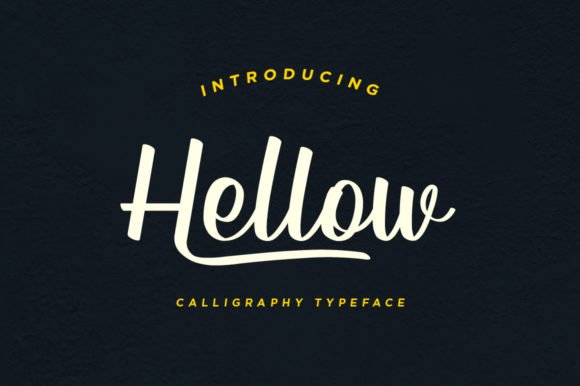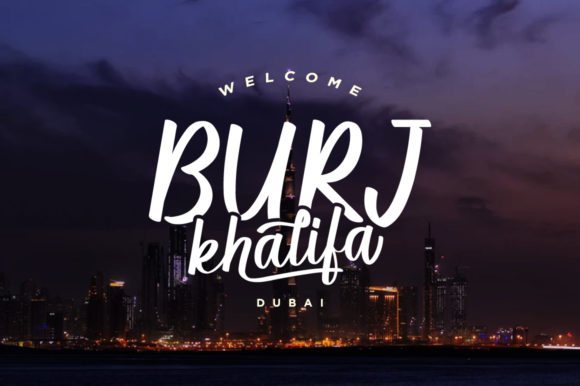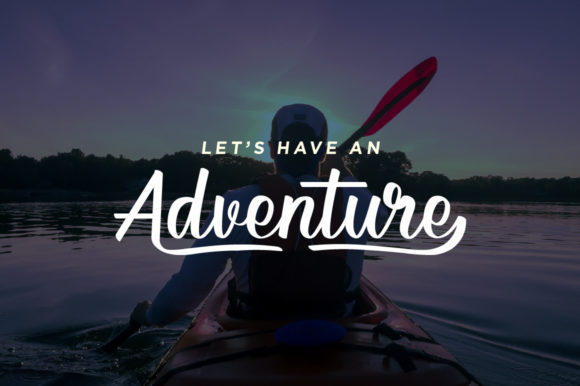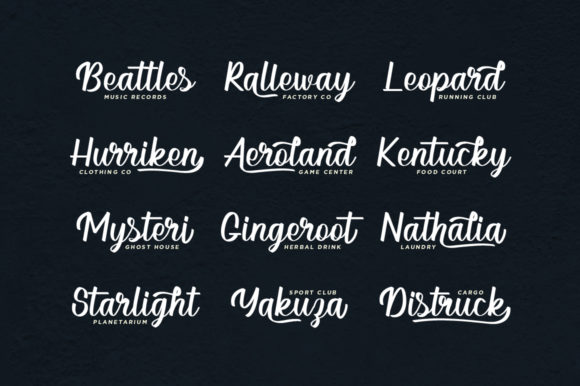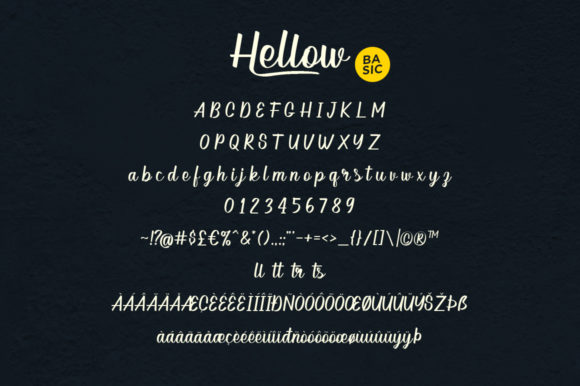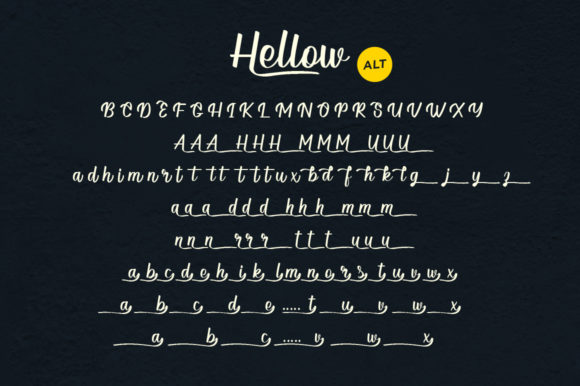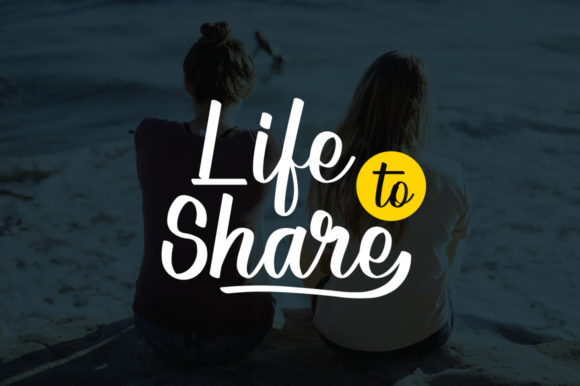
Unlocking the Magic of Handwritten Design
Have you ever been stuck on a design project, staring blankly at your screen, waiting for that spark of inspiration to strike? It’s a feeling we’ve all been there, and it’s exactly what sparked the creation of Hellow Font – a stunning handwritten font that embodies the carefree spirit of youth.
Designed to add a touch of whimsy and personality to any design project, Hellow Font is perfect for those looking to break free from the ordinary and create something truly unique. With its playful, handwritten style, it’s the perfect tool for designers seeking to add a dash of charm to their work.
Hellow Font Key Features
- Unique Characteristics: Features a distinctive, modern script style with a high x-height, making it perfect for headlines and titles.
- Kerning and Ligatures: Includes advanced kerning and ligature tables for precise letter spacing and improved readability.
Hellow Font Review
I recently had the chance to work with the “Hellow Font” and I must say, it’s a unique and interesting choice. Here are some of its strengths and weaknesses:
- Unique and creative design: The Hellow Font has a distinctive and playful feel that’s sure to stand out in any project.
- Wide range of styles: The font comes in multiple styles, from casual to formal, making it a versatile choice for various design projects.
- Legibility: Despite its creative design, the Hellow Font remains highly legible, making it suitable for both display and body text.
- Not suitable for all audiences: The Hellow Font’s unique design may not be suitable for all audiences, particularly those who prefer more traditional or conservative font styles.
- Limited compatibility: I encountered some compatibility issues with certain software and devices, which may be a concern for designers who need to work with a wide range of platforms.
- Overuse: While the Hellow Font is a great choice for some projects, its unique design may lead to overuse, which can result in a lack of creativity and originality in the design.
Overall, I think the Hellow Font is a great choice for designers who want to add a touch of creativity and playfulness to their projects. However, it’s essential to consider its limitations and use it judiciously to avoid overuse and ensure maximum impact.
Tips for Getting the Most Out of Hellow Font
For best results, use Hellow Font in bold or italic font styles to add emphasis to your text.
Experiment with different font sizes to create visual hierarchy and balance in your design.
Hellow Font is ideal for:
- Displaying headings and titles
- Creating emphasis in body text
- Designing logos and branding materials
Does Hellow Font support Unicode characters?
Yes, Hellow Font supports a wide range of Unicode characters, including Latin, Cyrillic, and Greek alphabets. The font also includes a comprehensive set of punctuation and symbol characters. You can check the font’s character map to see the full range of supported characters.